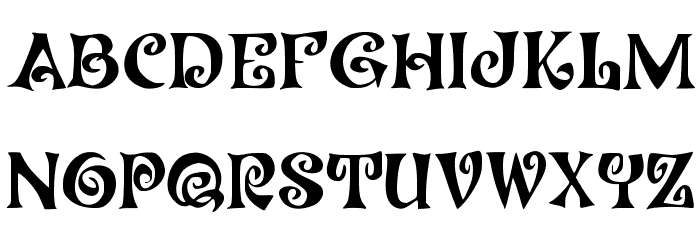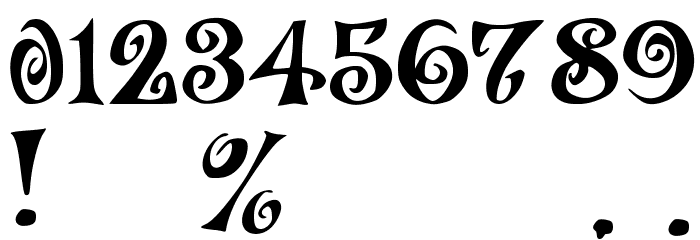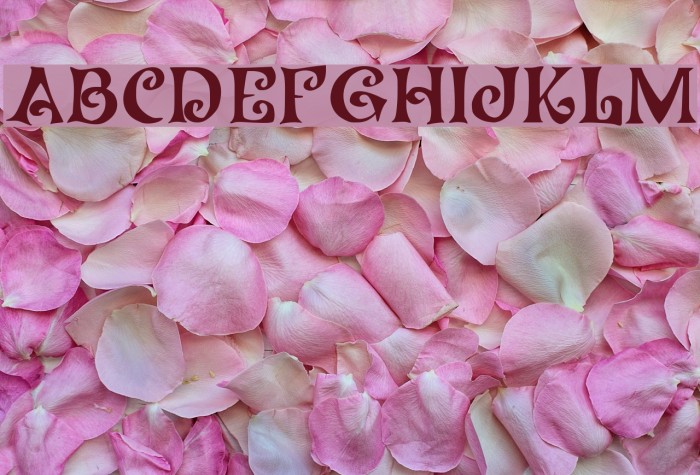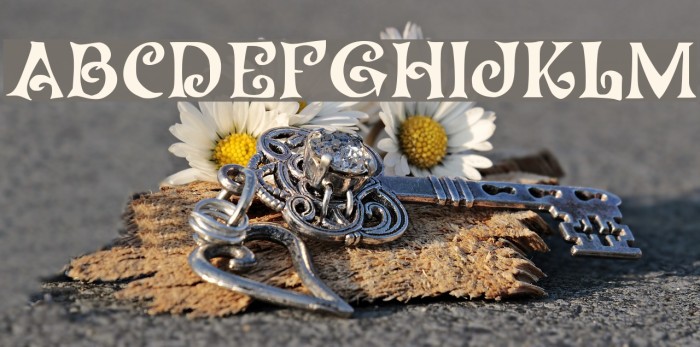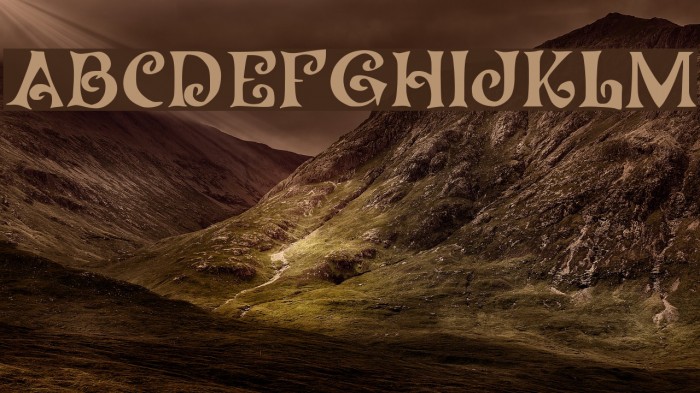
JMHCoronilla-Regular Font
This font features a bold and decorative style with a whimsical flair. The characters are uniquely designed with playful curves and intricate details, making it stand out as a display typeface. The uppercase letters exhibit a strong presence with their bold strokes and elaborate serifs, while the lowercase letters maintain a consistent style with slightly less ornamentation. Numbers and special characters follow the same decorative theme, ensuring a cohesive look across all glyphs. The font's artistic nature makes it ideal for creative projects that require a touch of elegance and fantasy.
A bold, decorative font with whimsical curves and intricate details.
- Proposed Projects: Ideal for posters, invitations, branding, and any project requiring a decorative and artistic touch.